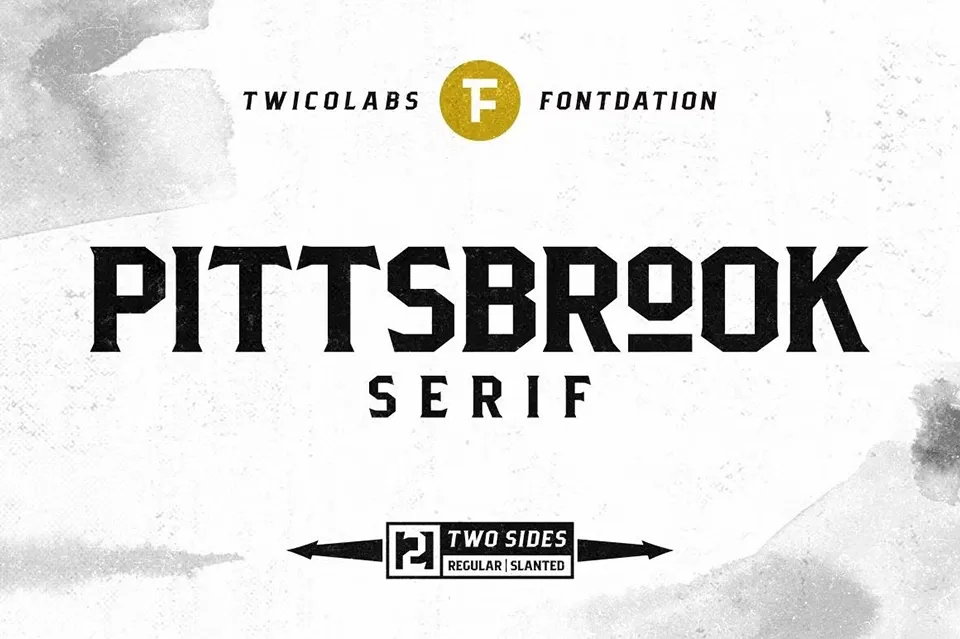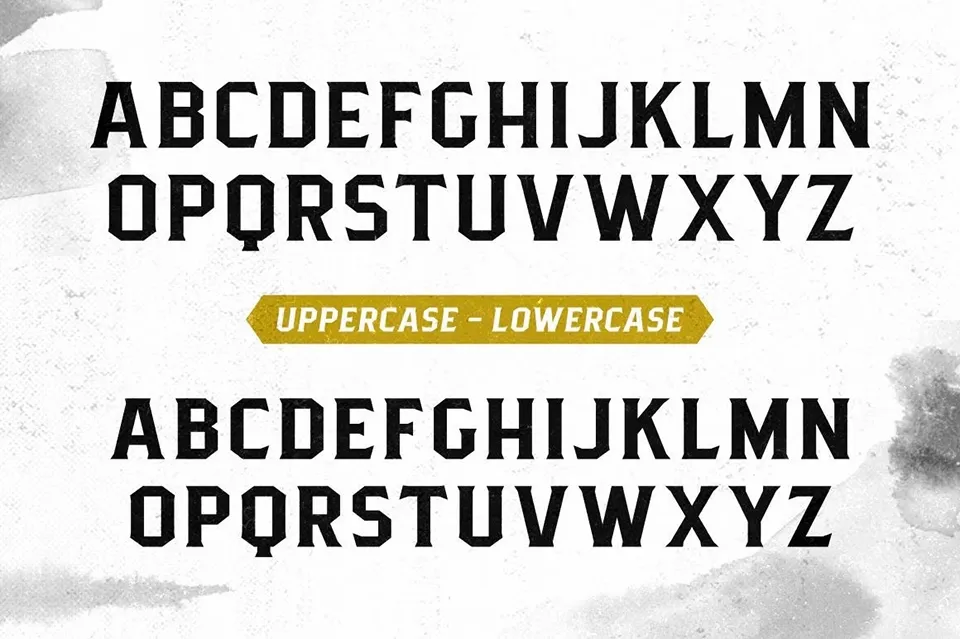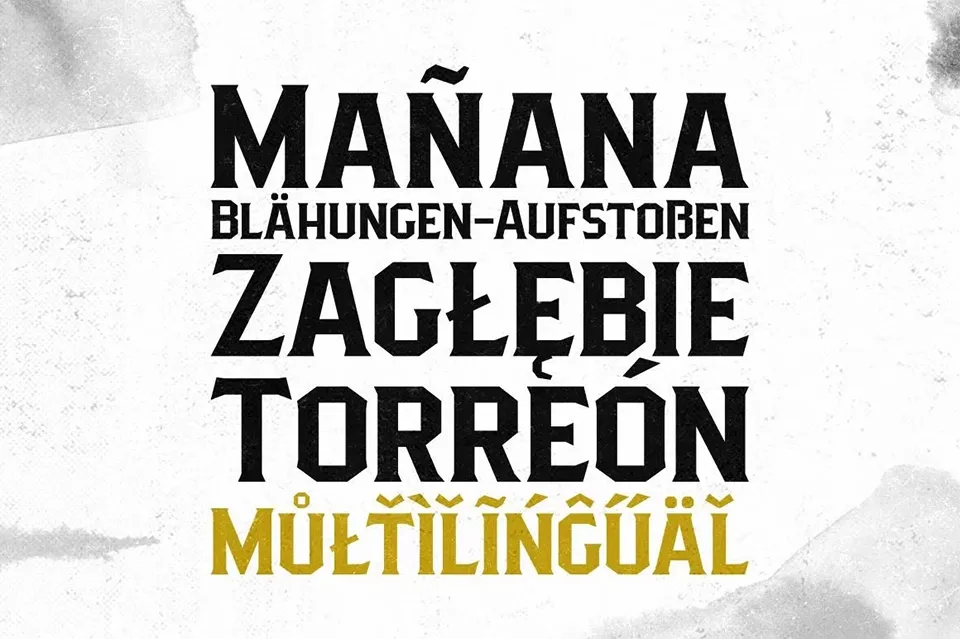
Pittsbrook Serif Font
Pittsbrook Serif Font is a classic typeface inspired by the bold lettering found in vintage advertisements and packaging. Its rigid, sharp, and blocky forms evoke a strong and impactful presence, making it ideal for headlines, branding, and retro-themed designs.